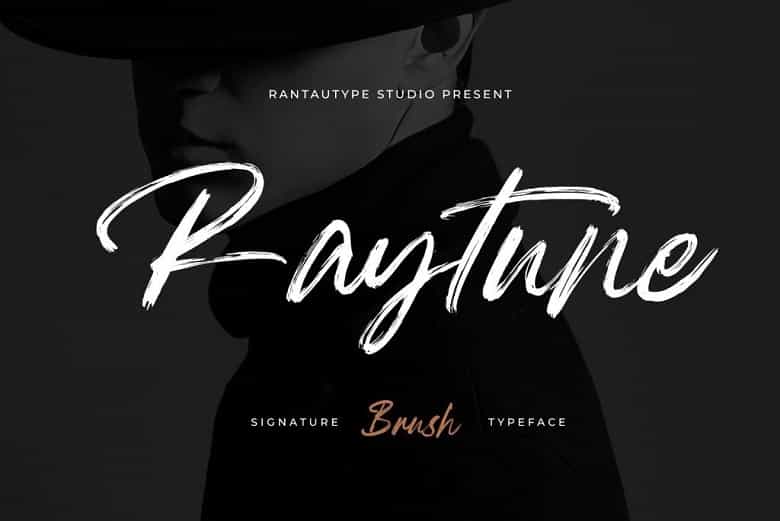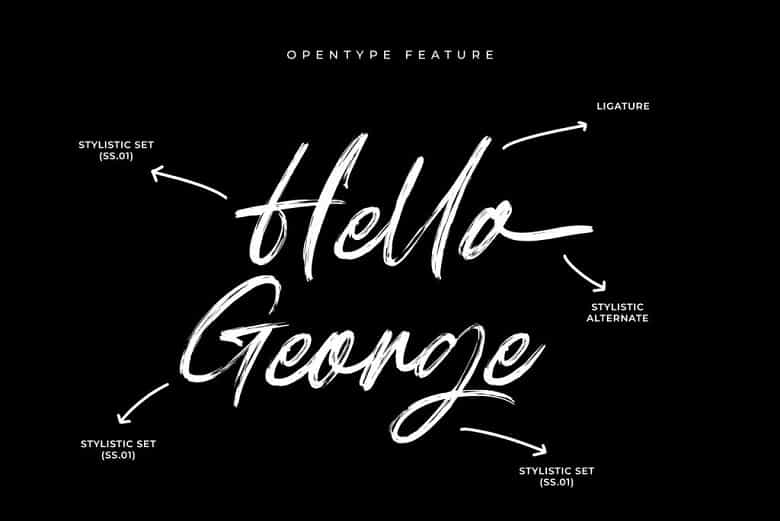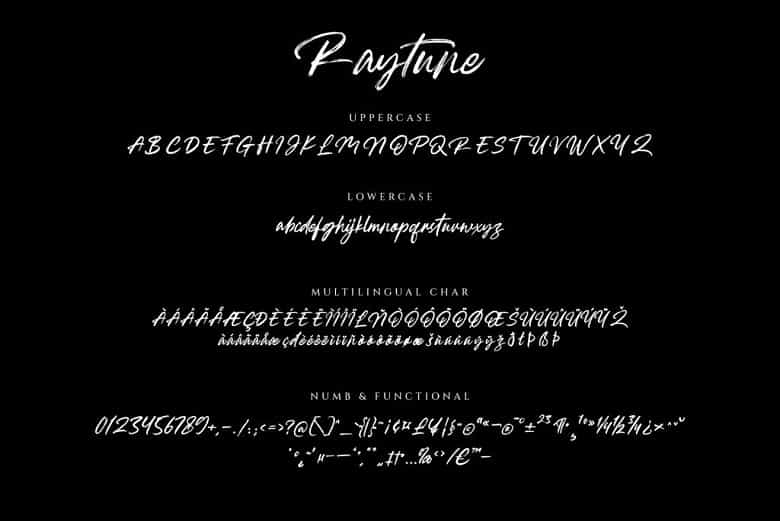
Raytune is signature brush script font with modern scratches. Raytune help to make your design project effective and your brand to be more noticeable. Raytune can be used for any project that requires a touch of creativity including; logo design, business cards, branding, display and magazine layout, invitation, corporate brand, product design, labels, business projects among others.